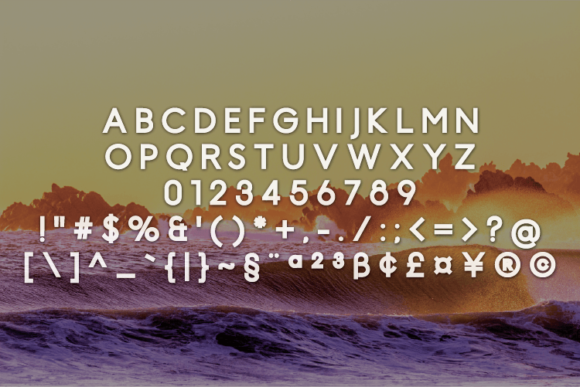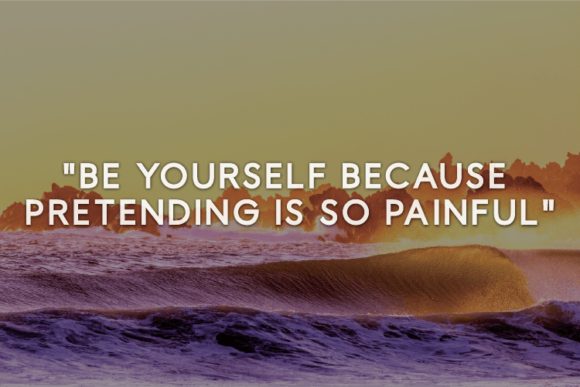
Introduction to Literolf Font
Remember that moment when you’re working on a creative project and you need the perfect font to bring your idea to life? The struggle is real, but what if I told you that there’s a font that’s about to become your new go-to design resource? Introducing the Literolf Font, a simple yet versatile sans serif font that’s sure to elevate your design game.
With its smooth and clean lines, the Literolf Font works beautifully for logos, branding, and web headings, making it a high-quality design asset that’s perfect for both personal and professional projects. Whether you’re a seasoned designer or just starting out, this font is a valuable addition to your design toolbox, and the best part? It’s available for free download, giving you the freedom to experiment and express yourself without breaking the bank.
Key Features of Literolf Font
- High-quality design resource ideal for creative projects and personal use.
- Features a unique and modern design aesthetic, making it perfect for branding and marketing materials.
- Designed to be versatile and suitable for a wide range of creative projects, from logos to digital graphics.
- Includes a comprehensive character set, supporting a variety of languages and characters.
Honest Review: Literolf Font
As a designer, I’m always on the lookout for high-quality design resources to elevate my creative projects. The Literolf Font has caught my attention, and I’m excited to share my honest review with you.
- The font features a transparent background, allowing for seamless integration with other design elements.
- The Literolf Font is highly versatile, making it suitable for a wide range of creative projects, from digital marketing materials to print publications.
While the Literolf Font is a solid addition to any designer’s toolkit, there are a few limitations to consider.
- The font family is relatively small, with only a few styles available.
- The Literolf Font may not be suitable for projects that require a more formal or traditional font style.
Overall Impression
Overall, I’m impressed with the Literolf Font’s high quality and versatility. While it may not be the perfect fit for every project, it’s an excellent choice for designers who are looking for a free, high-quality font with a transparent background.
Tips for Getting the Most Out of Literolf Font
Use the Literolf Font with a high-quality image or design element to create a visually appealing design. Experiment with different font sizes and colors to add emphasis and visual interest. You can also use the font in conjunction with other design resources, such as graphics and icons, to create a cohesive and professional-looking design.
Common Use Cases for Literolf Font
The Literolf Font is a versatile design resource that can be used in a variety of creative projects, including business cards, brochures, and social media graphics. It’s also a great choice for designers who want a free, high-quality font with a transparent background.